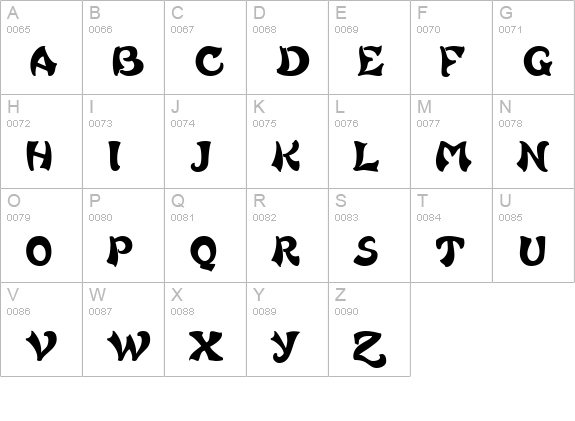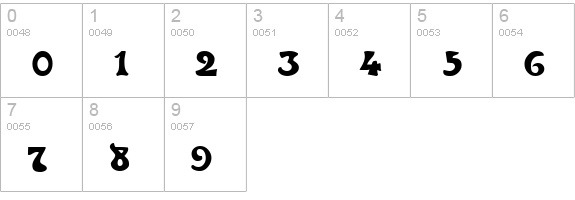
French Grotesque Font Details
The French Grotesque font exudes an air of sophistication and charm with its unique blend of classic elegance and modern quirkiness. Its bold and distinctive characters are sure to make a statement in any design project, adding a touch of whimsy and flair. This font is perfect for creating eye-catching headlines, branding materials, and more. Best of all, the French Grotesque font is available for free download at FontsMarket.com, making it accessible to all designers and creatives looking to add a touch of French-inspired style to their work. Don't miss out on this fantastic opportunity to enhance your projects with this stunning font today!